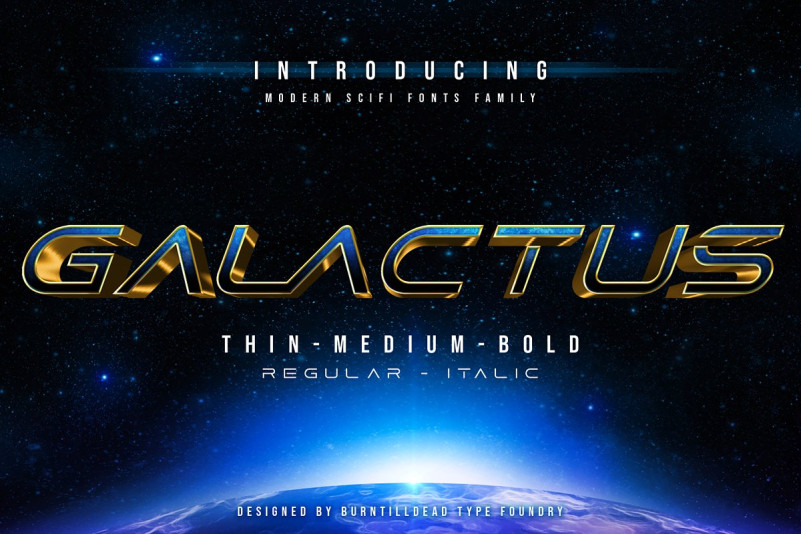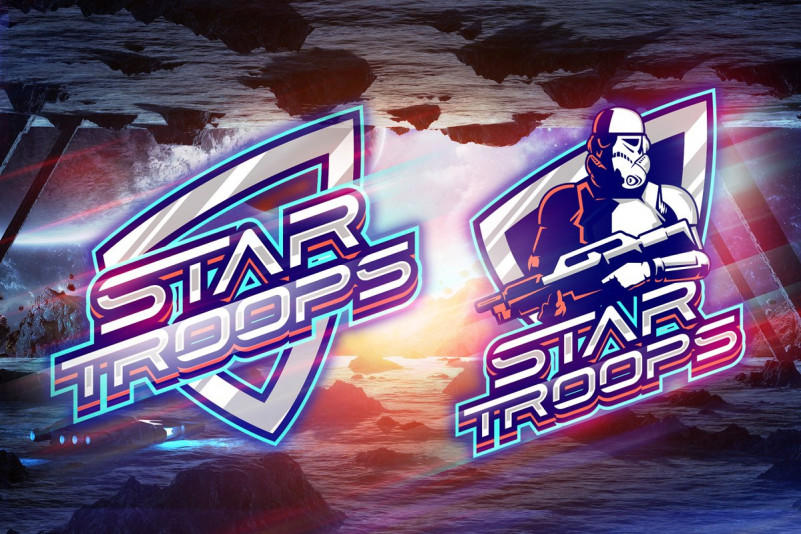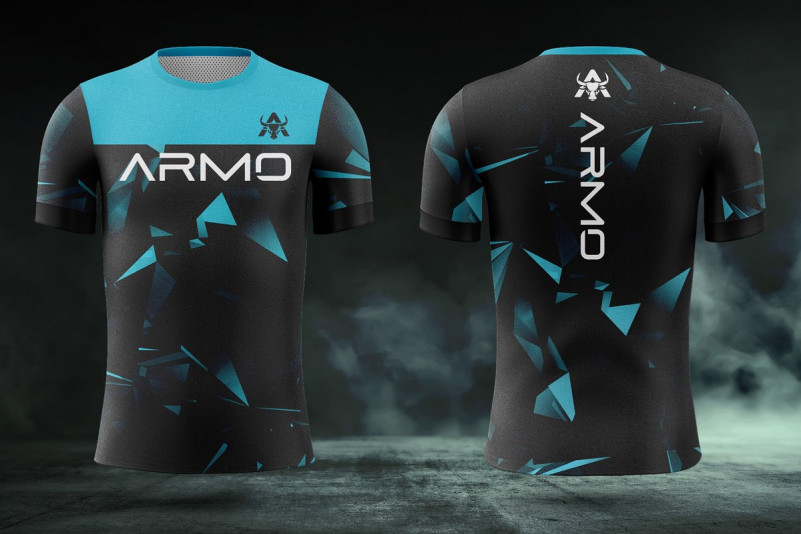
Galactus Font
Say Hi: Introducing our new font family called Galactus, a modern display font with wide & clean look. Dedicated to SCIFI logo style. Really great for e-sports logo, aerospace games, jersey designs, automotive logos, etc .